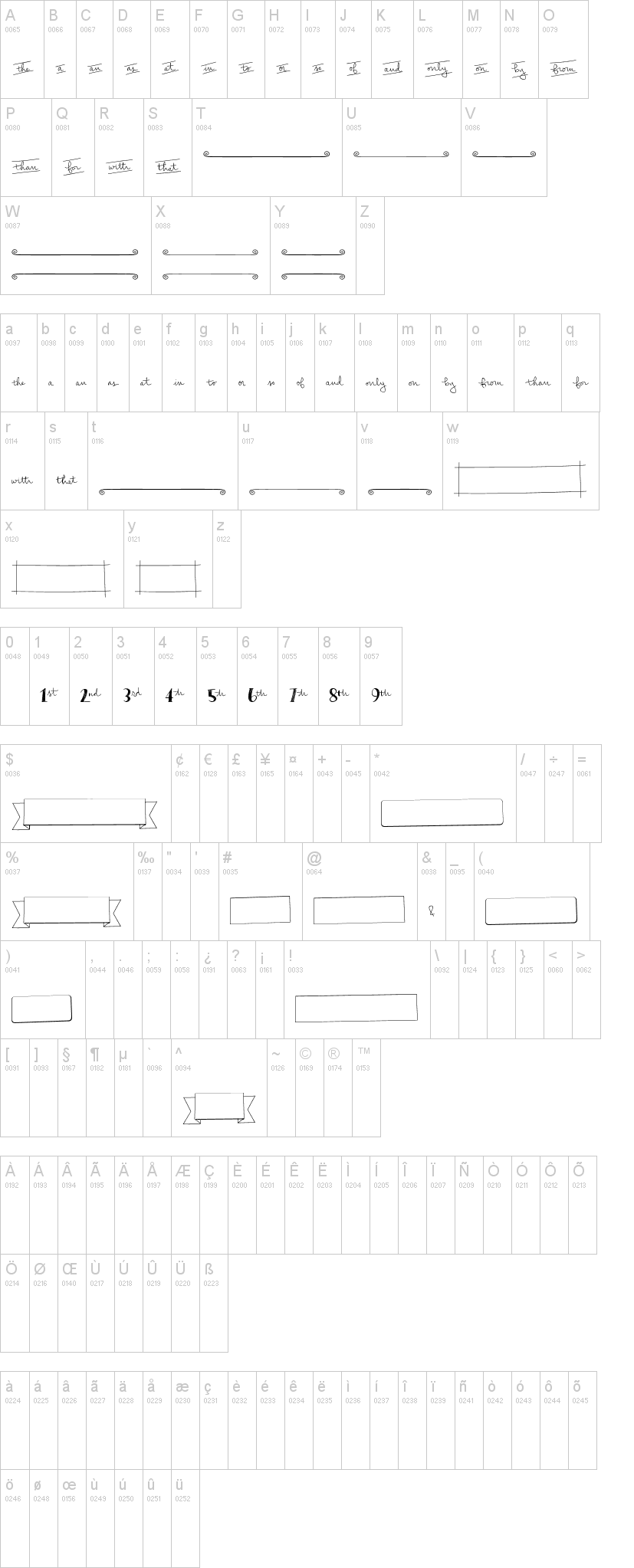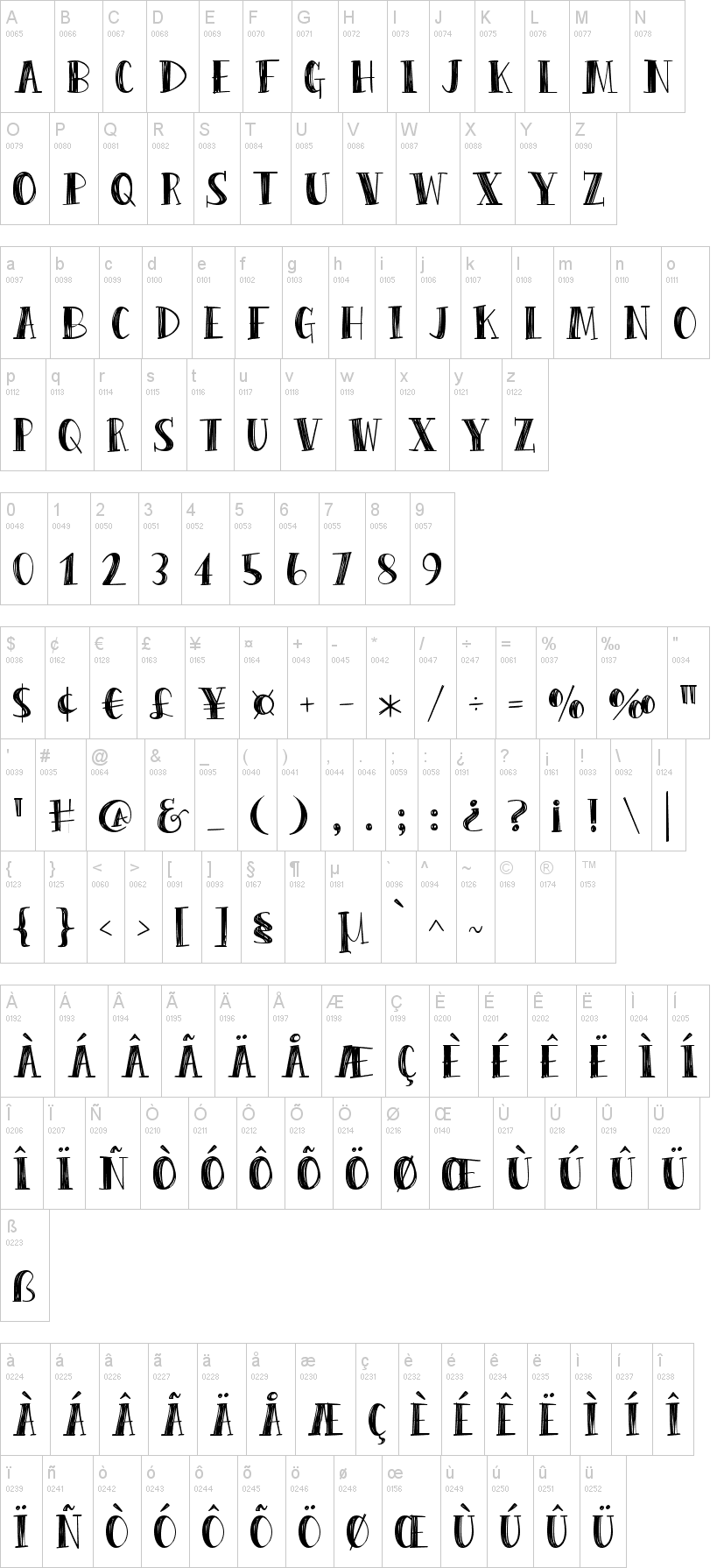
Peas & Carrots Extras.ttfNote of the authorA sketchy all-caps font! Alternate upper and lowercase letters for a custom hand-drawn look. Comes with an 'extras' font with accent words, banners, and more!